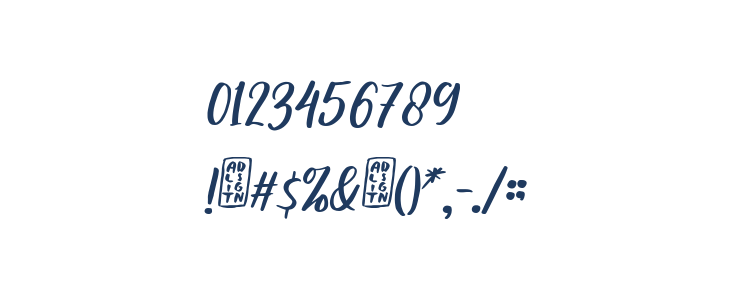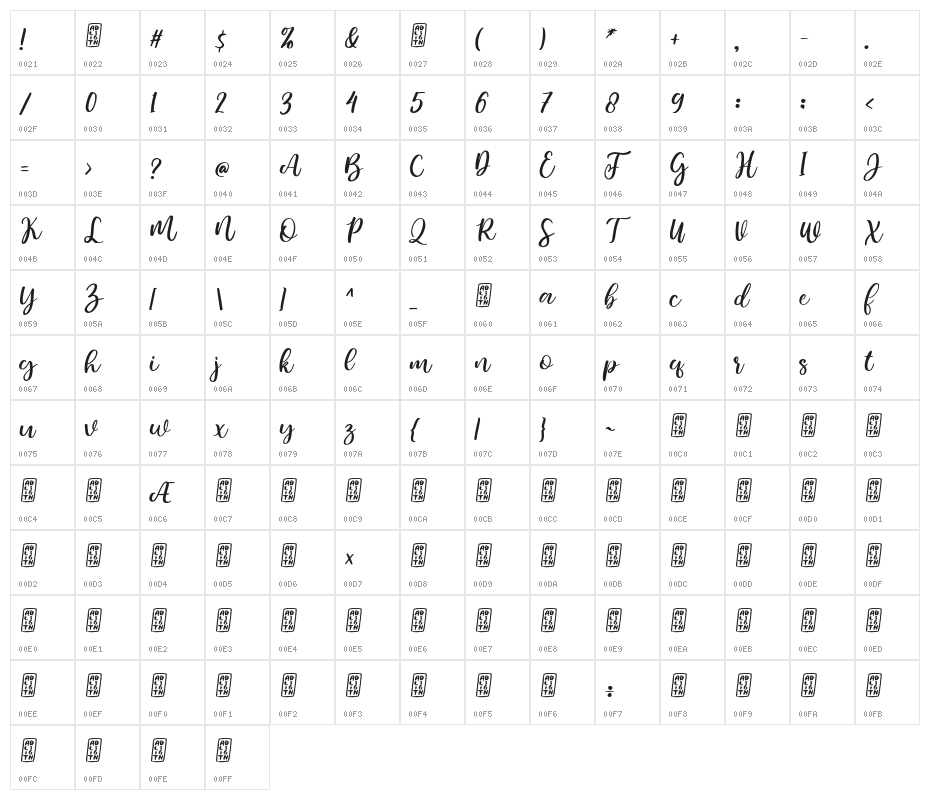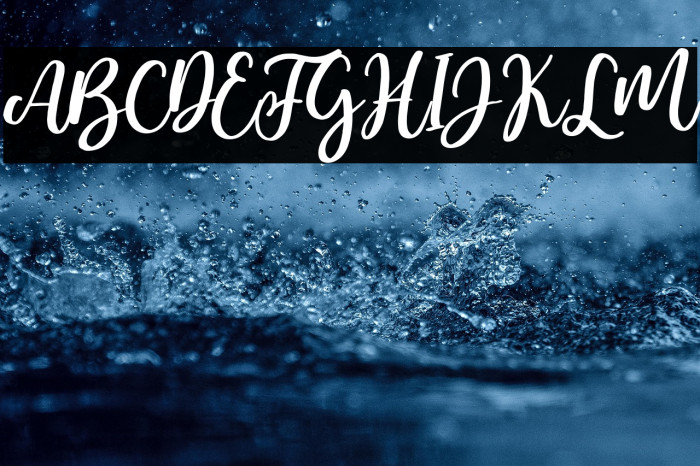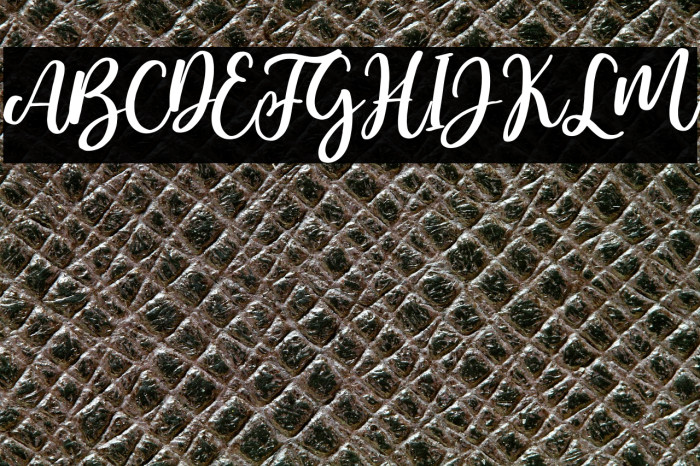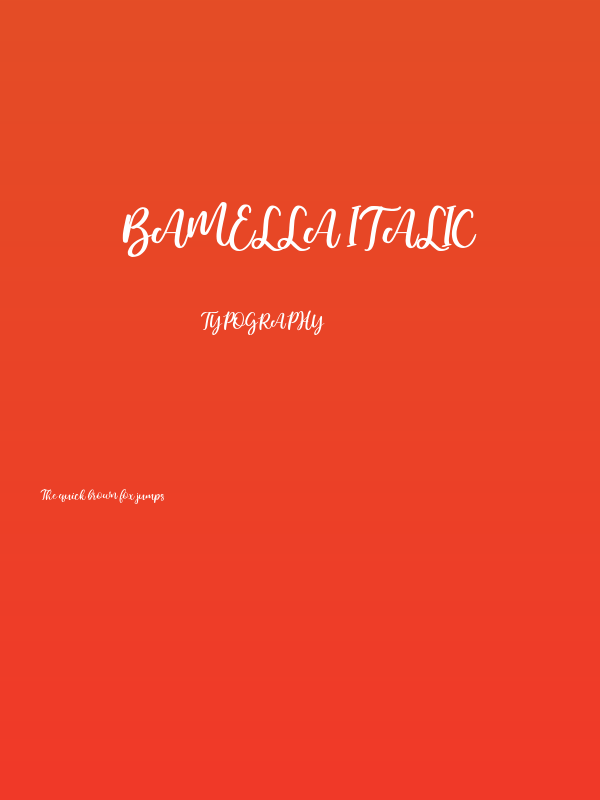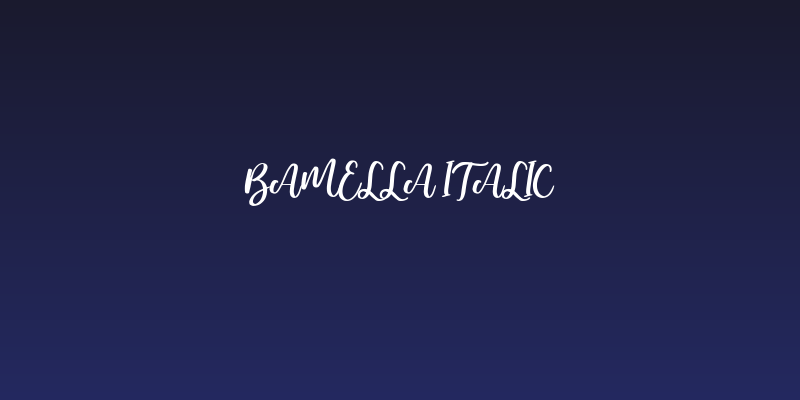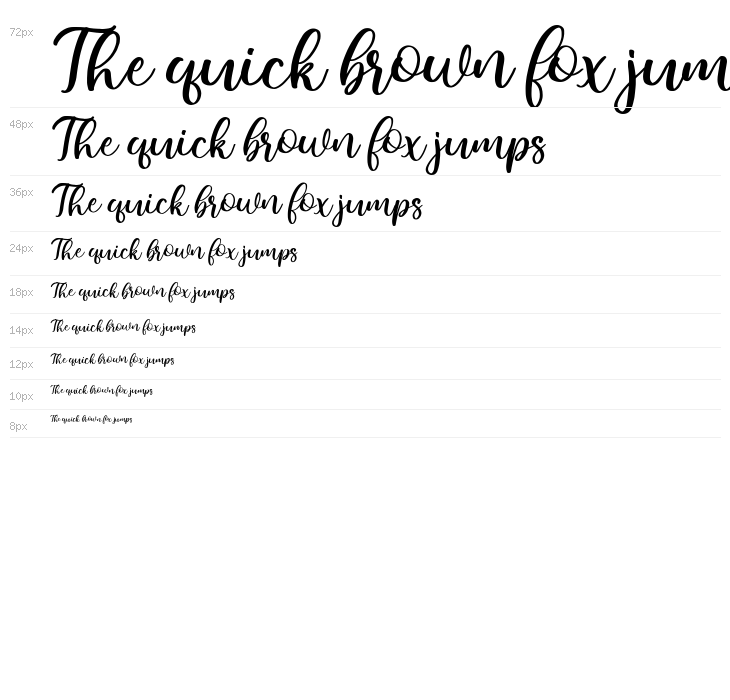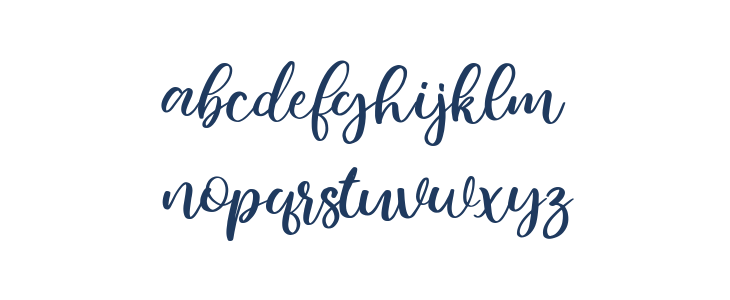
Bamella Italic Font
Bamella Italic Description
This font features a flowing, cursive style with a modern flair. The letters are elegantly connected, showcasing a smooth and continuous stroke that gives it a handwritten appearance. The uppercase letters are bold and prominent, while the lowercase letters maintain a consistent flow, adding a touch of sophistication. The numbers and special characters are designed to complement the overall aesthetic, maintaining the same fluidity and style. This font is perfect for projects that require a personal touch, such as invitations, greeting cards, or branding materials.
| Proposed Projects | Ideal for wedding invitations, greeting cards, personal branding, and elegant packaging designs. |